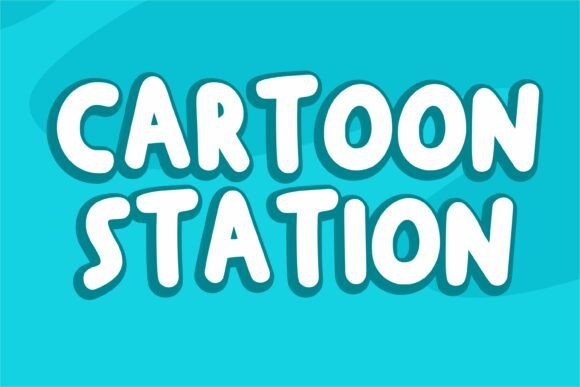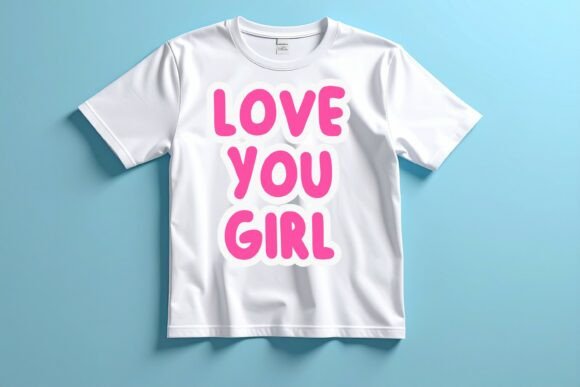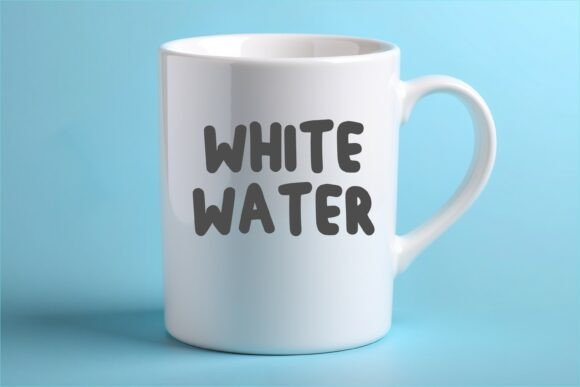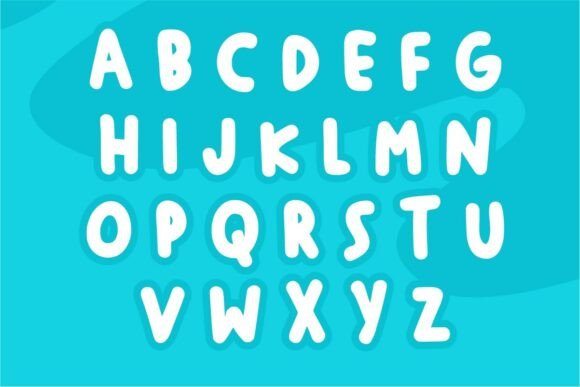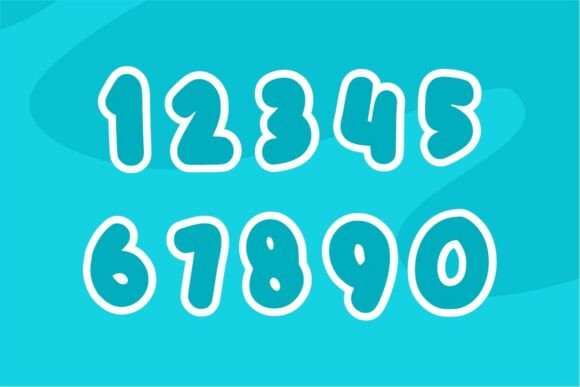
Introducing Comic Boulder Font: The Ultimate Playful Cartoon Font
Are you looking for a font that can add a dash of fun and playfulness to your designs? Look no further than Comic Boulder Font! This bold and cheerful cartoon font is perfect for creating eye-catching headlines, logos, stickers, posters, and more. With its chunky, rounded letterforms and fun bubble style, Comic Boulder is sure to bring a smile to your audience’s faces.
What Makes Comic Boulder Font So Special?
Comic Boulder Font is a unique and versatile font that is designed to deliver a cheerful and energetic look. Its bold and chunky letterforms make it perfect for creating attention-grabbing headlines, while its rounded edges and fun bubble style give it a friendly and approachable feel. Whether you’re designing for kids or adults, Comic Boulder Font is sure to add a touch of whimsy and fun to your project.
Perfect for Kids’ Designs and Comic Titles
Comic Boulder Font is ideal for kids’ designs, comic titles, and any project that needs a fun and playful touch. Its bold and colorful appearance makes it perfect for creating eye-catching posters, stickers, and merchandise that kids will love. Whether you’re designing a comic book, a kids’ magazine, or a fun educational resource, Comic Boulder Font is the perfect choice.
But Comic Boulder Font isn’t just limited to kids’ designs and comic titles. Its versatility makes it perfect for a wide range of creative projects, including:
- Logos and branding: Add a fun and playful touch to your logo and branding with Comic Boulder Font.
- Packaging: Use Comic Boulder Font to create eye-catching packaging that stands out on store shelves.
- Social media graphics: Add a dash of fun and personality to your social media graphics with Comic Boulder Font.
- Merchandise: Create fun and playful merchandise, such as t-shirts, stickers, and tote bags, with Comic Boulder Font.
- Posters and flyers: Use Comic Boulder Font to create eye-catching posters and flyers that grab attention.
Why Choose Comic Boulder Font?
So why choose Comic Boulder Font for your next project? Here are just a few reasons:
- Unique and playful appearance: Comic Boulder Font has a unique and playful appearance that is sure to grab attention.
- Versatile: Comic Boulder Font is versatile and can be used for a wide range of creative projects.
- Easy to read: Despite its bold and chunky appearance, Comic Boulder Font is easy to read, even at small sizes.
- Fun and energetic: Comic Boulder Font delivers a fun and energetic look that is perfect for creating engaging and playful designs.
Tips for Using Comic Boulder Font
Here are a few tips for using Comic Boulder Font in your designs:
- Use it boldly: Comic Boulder Font is designed to be used boldly, so don’t be afraid to use it in large sizes to create eye-catching headlines.
- Experiment with colors: Comic Boulder Font looks great in bright, bold colors, so experiment with different color combinations to find the perfect look for your design.
- Pair it with other fonts: Comic Boulder Font pairs well with other fonts, so try pairing it with a sans-serif font for a fun and playful look.
In conclusion, Comic Boulder Font is a bold and playful cartoon font that is perfect for creating fun and engaging designs. Its unique and playful appearance, versatility, and ease of use make it a great choice for designers and crafters looking to add a dash of fun and personality to their projects. Whether you’re designing for kids or adults, Comic Boulder Font is sure to deliver a cheerful and energetic look that will grab attention and leave a lasting impression.